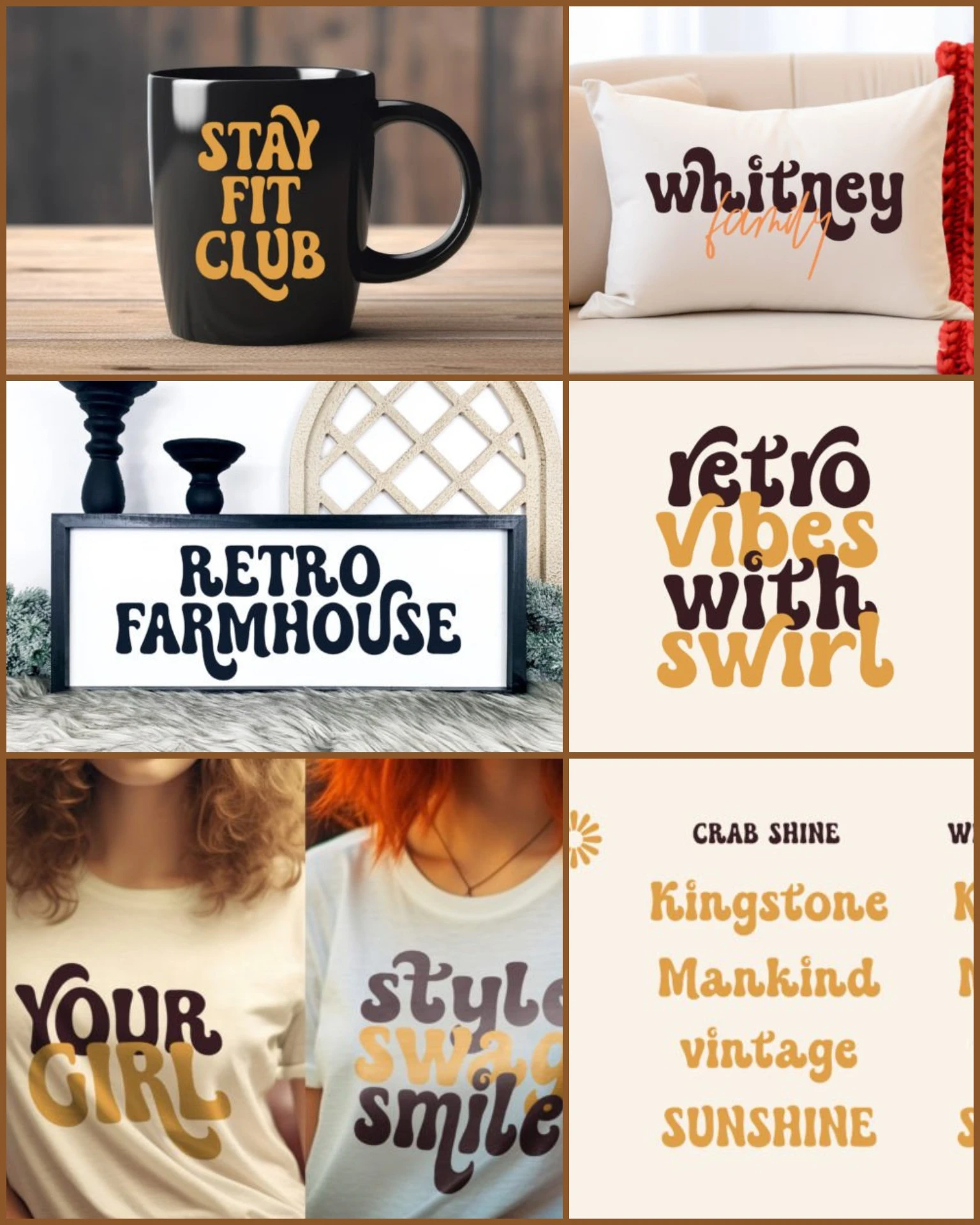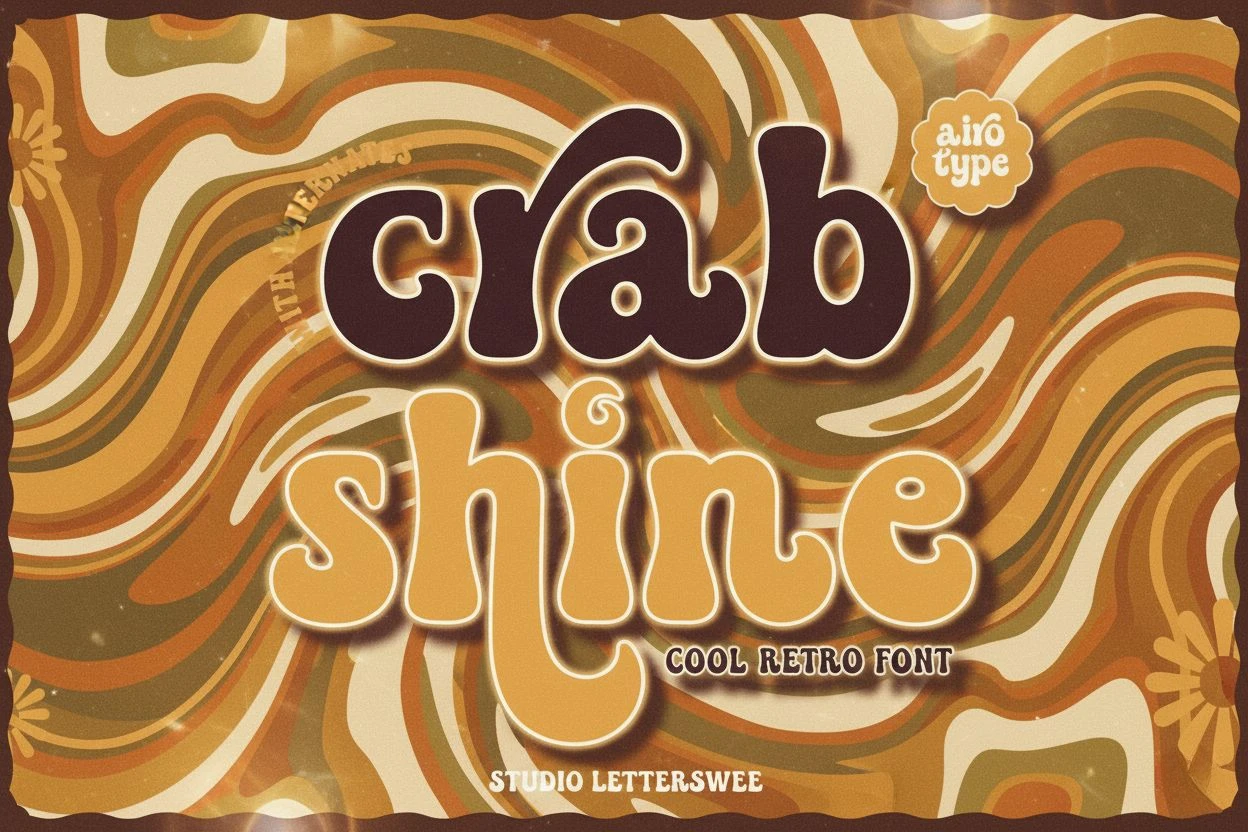
Crab Shine is a modern retro font with an elegant vintage charm and a fun, lovable style. Featuring soft curves, bold shapes, and playful alternates, this typeface brings a warm nostalgic feel inspired by the 70s and 80s. Its bubbly and groovy aesthetic makes it perfect for eye-catching designs that need personality, color, and retro flair.
Ideal for logos, T-shirts, stickers, sublimation designs, crafting projects, branding, quotes, greeting cards, children’s designs, and social media graphics, Crab Shine adds a whimsical and stylish touch to any creative work. Whether you’re creating boho artwork, vintage posters, or cute aesthetic projects, this font delivers a charming blend of fun and sophistication.